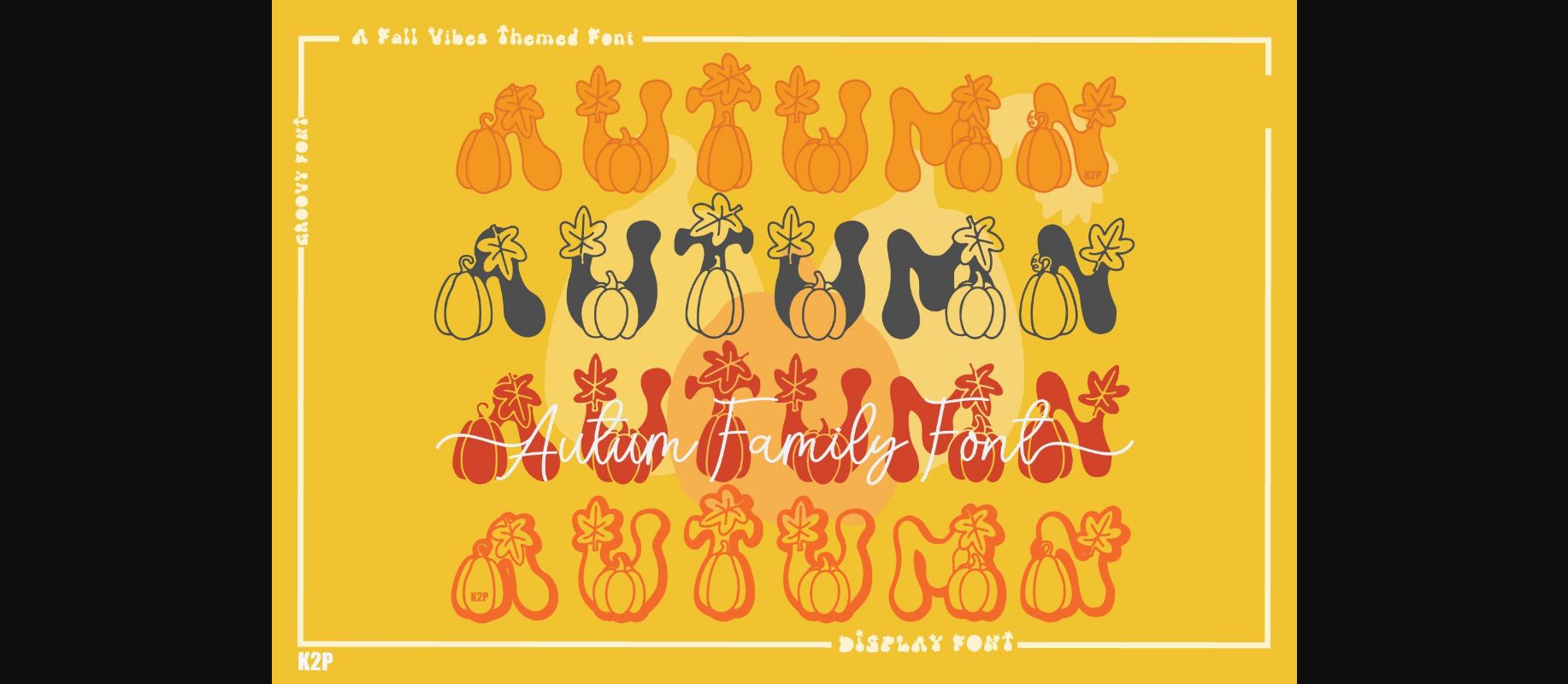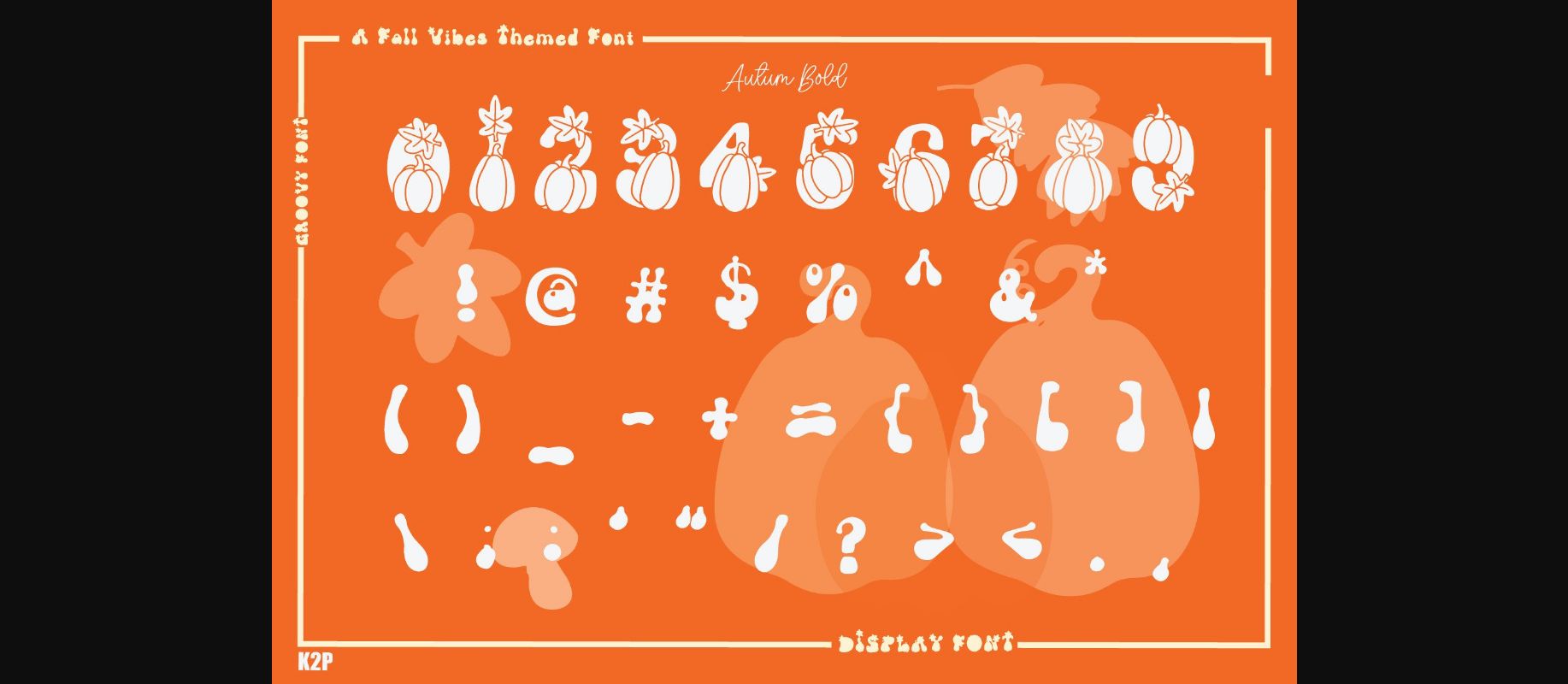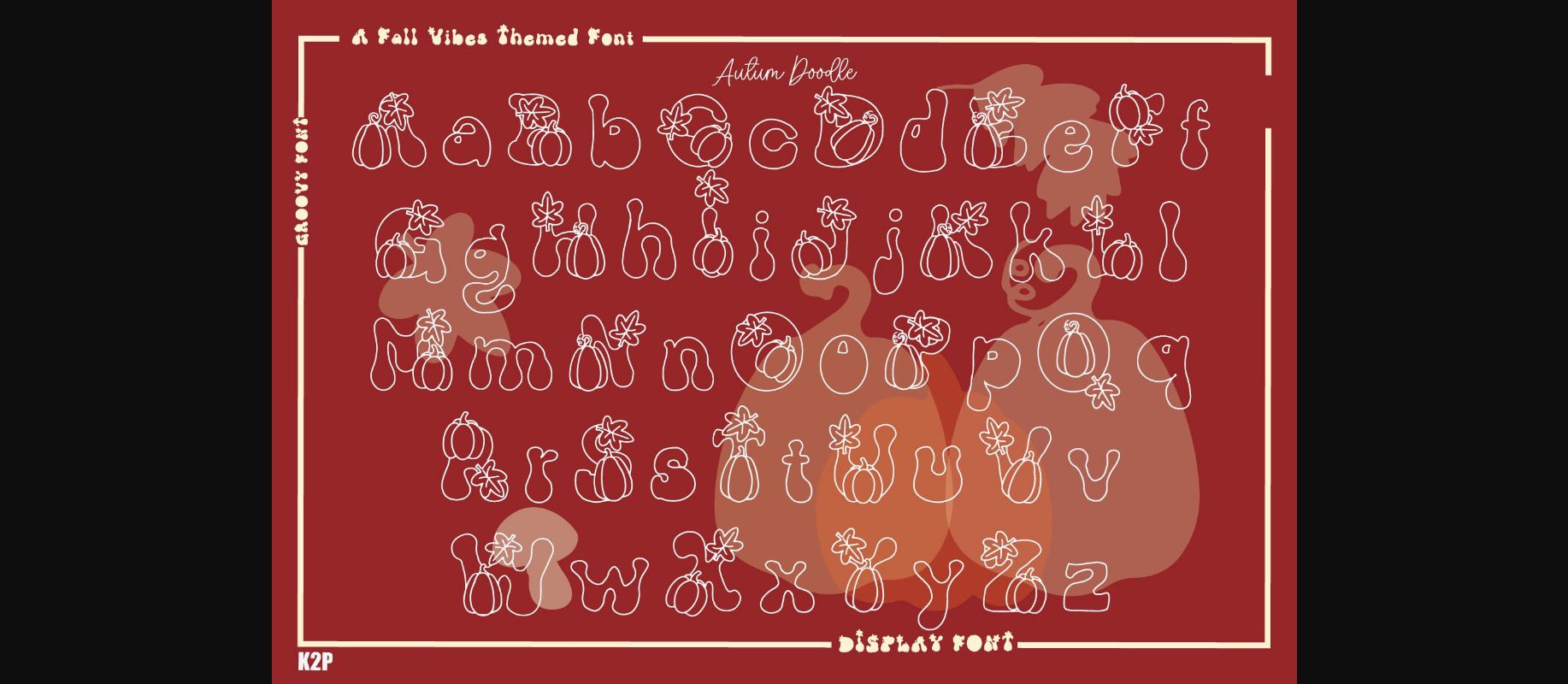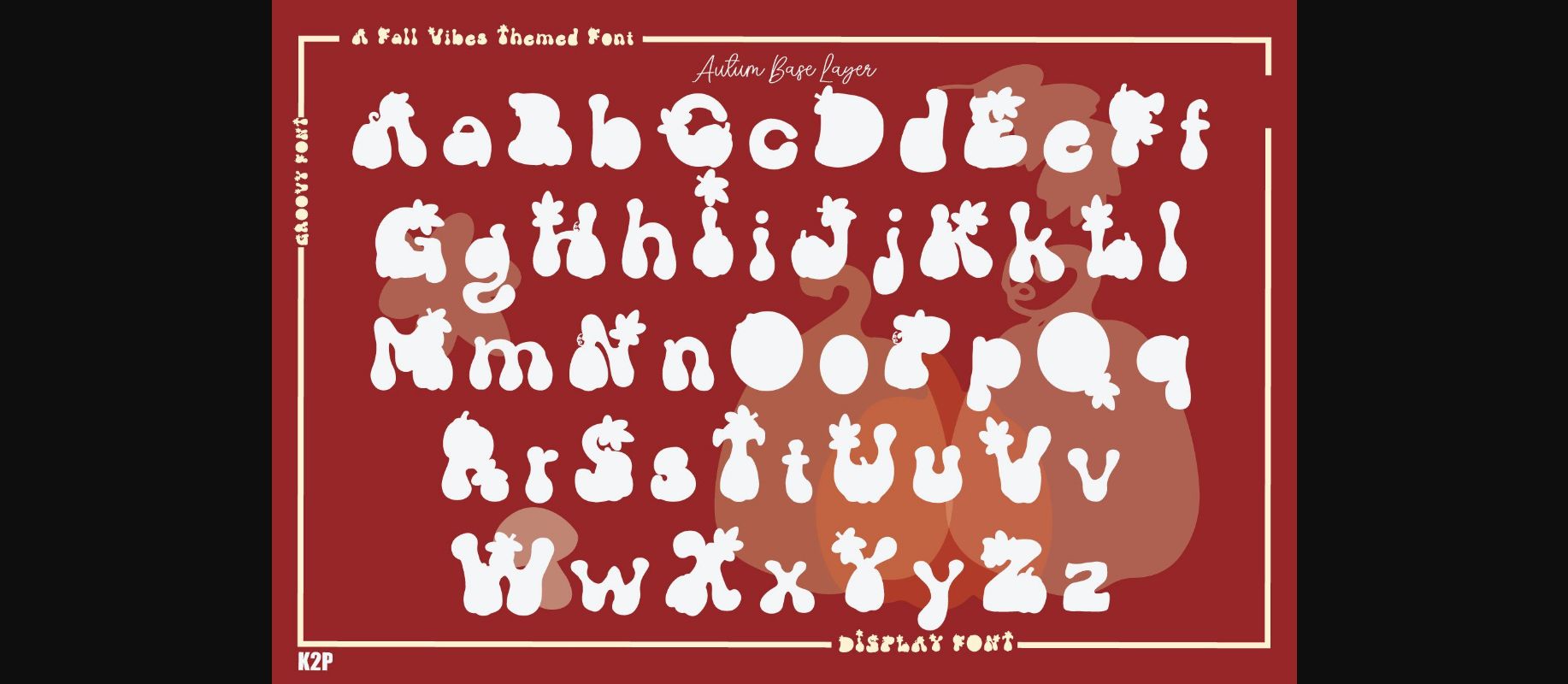
About Autumn Font
Autumn is a cute and incredibly unique decorative font. It can be used for various design ideas, particularly those related to the Fall season. This font is PUA encoded which means you can access all of the glyphs and swashes with ease.